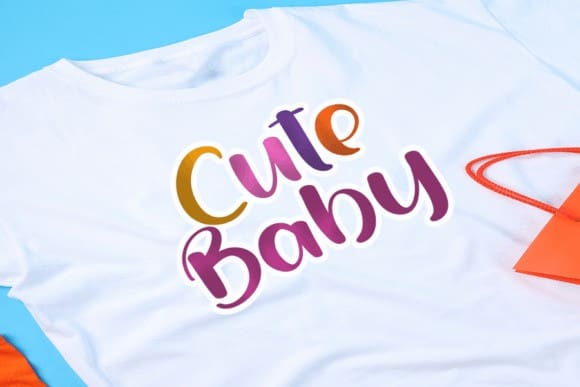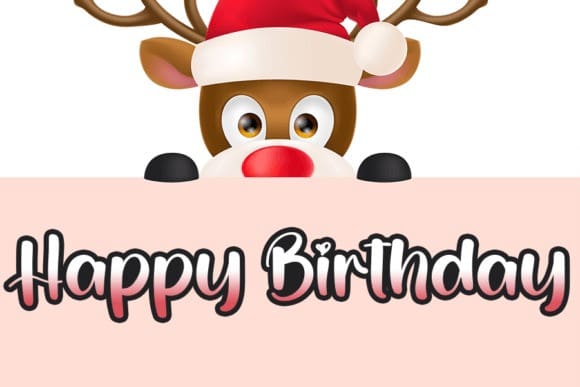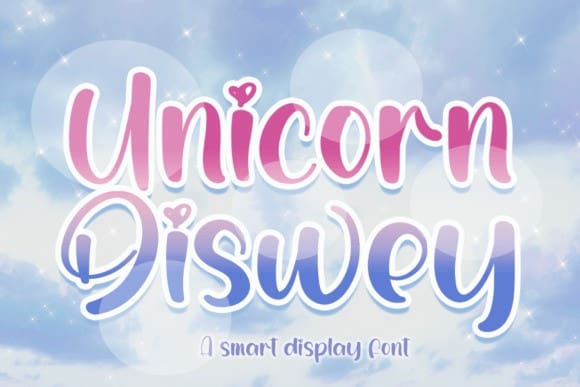
Unicorn Diswey Font
Unicorn Diswey Font is a beautiful display font perfect for magazines and crafts. Add it to your fonts library, and use it to create spectacular designs!